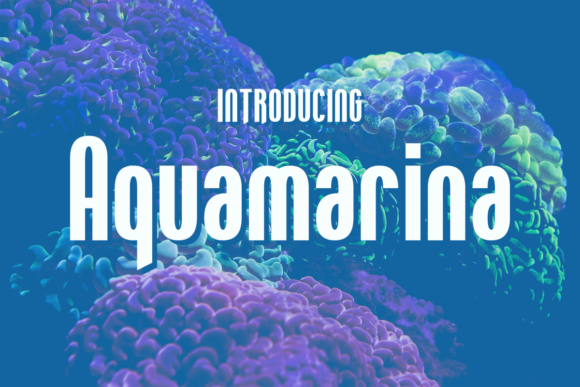
The Designer’s Delight: Exploring the Aquamarina Font
A First Impression: What Makes Aquamarina Stand Out
Aquamarina is more than just a font – it’s a design statement. Its clean lines, elegant curves, and refreshing aesthetic make it perfect for any project that needs to stand out. Whether you’re a designer, crafter, or creative hobbyist, this font is sure to become a favorite in your collection.
- ✨ Versatility: Aquamarina can be used for a wide range of projects, from logos and branding to invitations and social media graphics.
- ✅ Readability: The font is incredibly legible, even at smaller sizes, making it perfect for body text or captions.
- 💡 Unique personality: Aquamarina has a distinct, modern feel that sets it apart from more traditional fonts.
- 🤔 Limited glyphs: While Aquamarina has a great selection of standard characters, it may not have the extensive glyph library that some designers require.
- ⚠️ Not ideal for body text: While readable, Aquamarina is best used for headlines, titles, or short paragraphs – it may not be the best choice for lengthy blocks of text.
The Story Behind Aquamarina: Designer Inspiration
While the true story behind Aquamarina’s creation may be unknown, it’s easy to imagine a designer inspired by the ocean’s soothing colors and elegant curves. Perhaps they wanted to create a font that captured the essence of a seaside escape – a typeface that’s both refreshing and refined.
| What type of projects is Aquamarina best suited for? | Aquamarina is perfect for projects that require a modern, eye-catching font, such as logos, branding, invitations, and social media graphics. |
| Is Aquamarina a script font? | No, Aquamarina is a sans-serif font with clean lines and elegant curves. |
| Does Aquamarina have a wide range of glyphs? | While Aquamarina has a great selection of standard characters, it may not have an extensive glyph library. Be sure to check the font’s capabilities before using it for a project that requires a wide range of glyphs. |